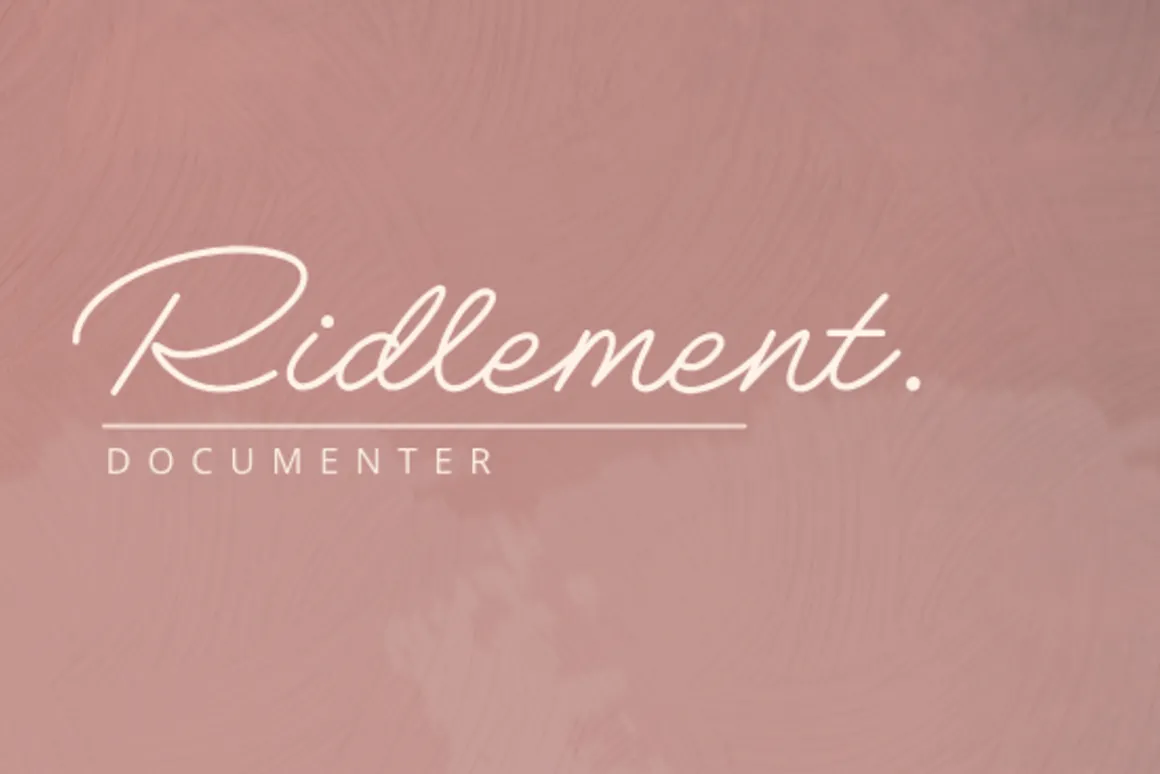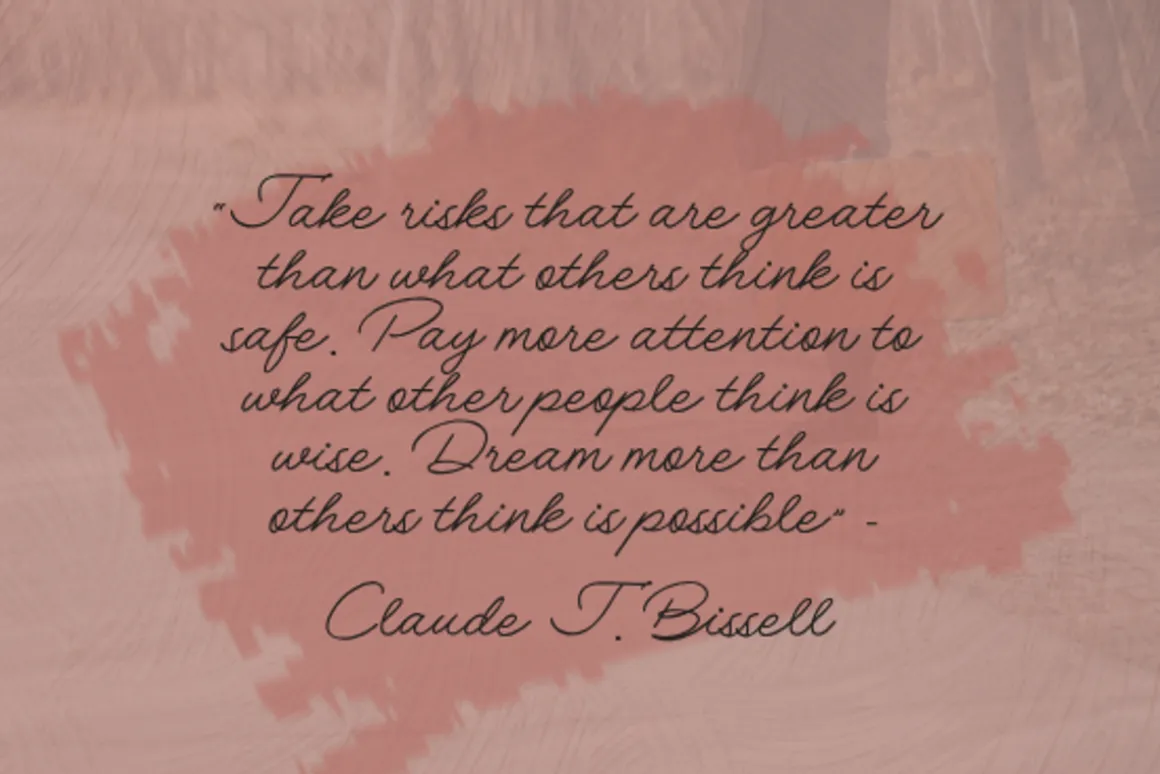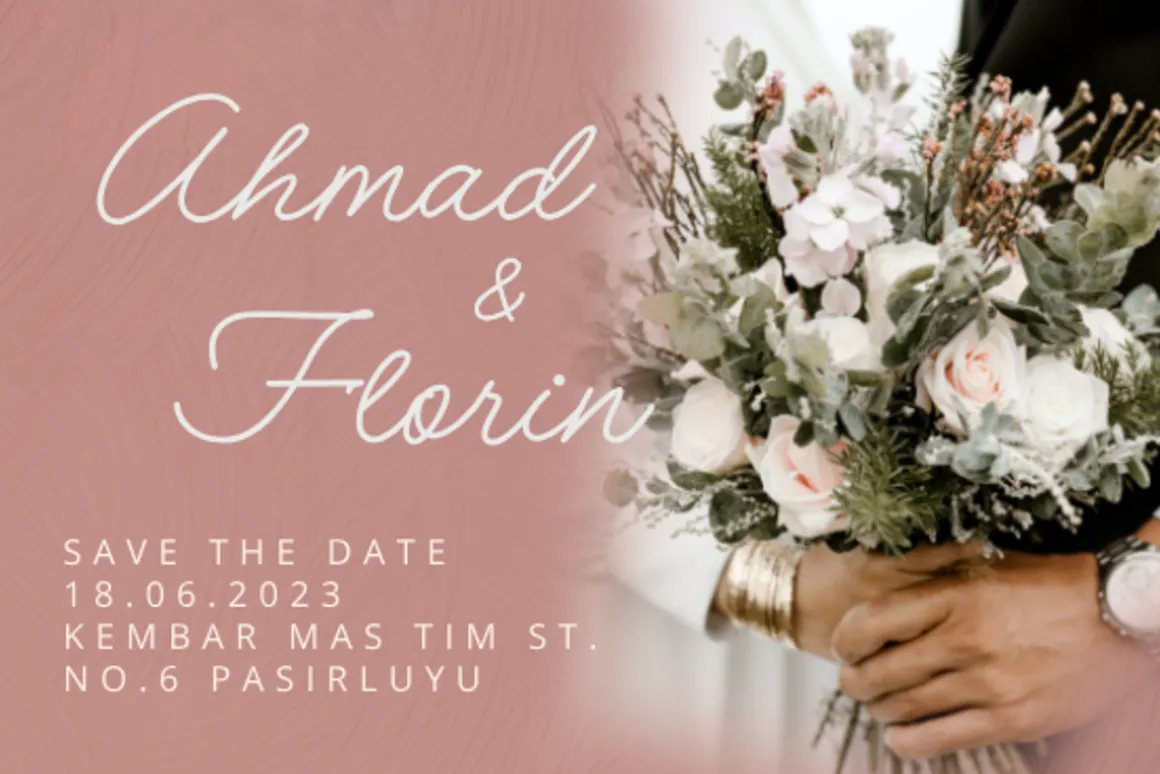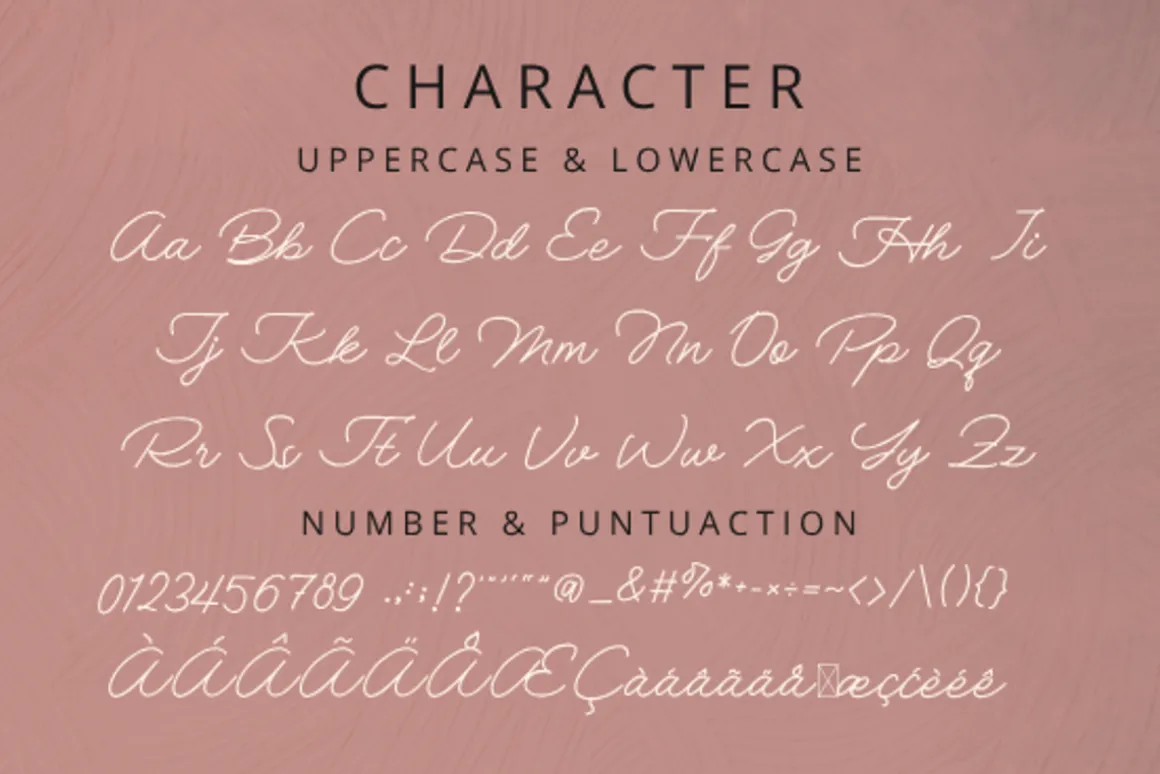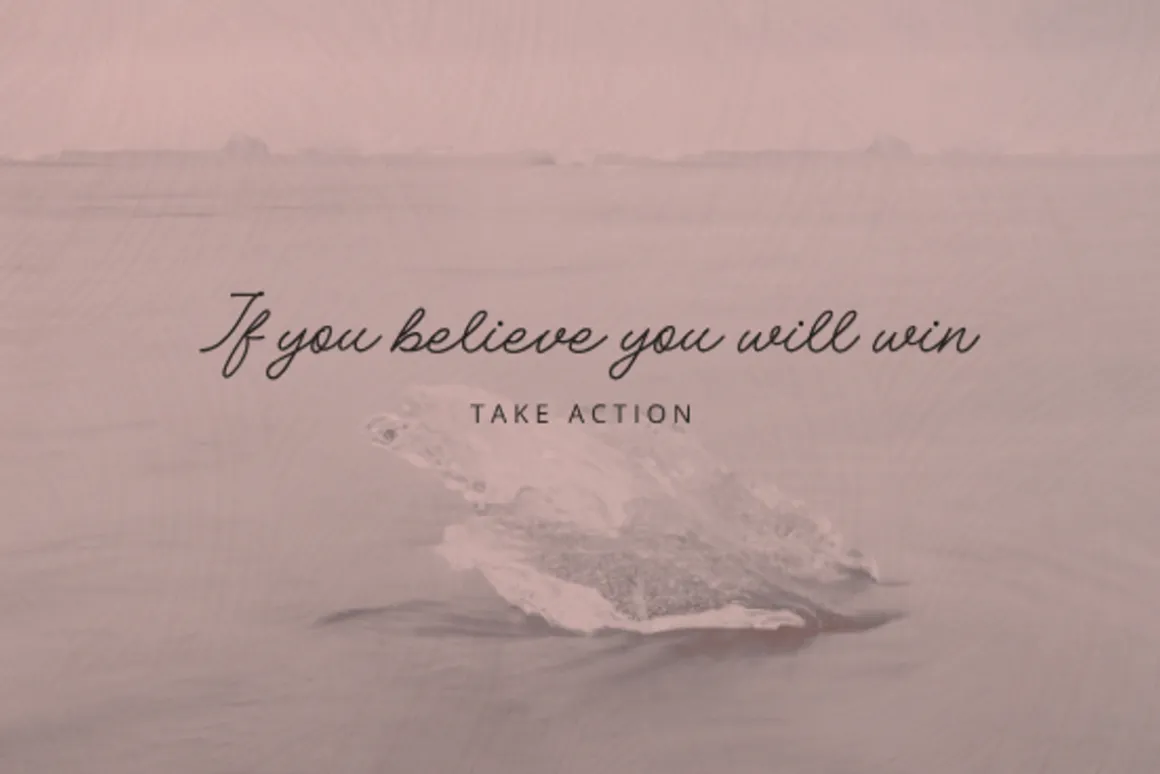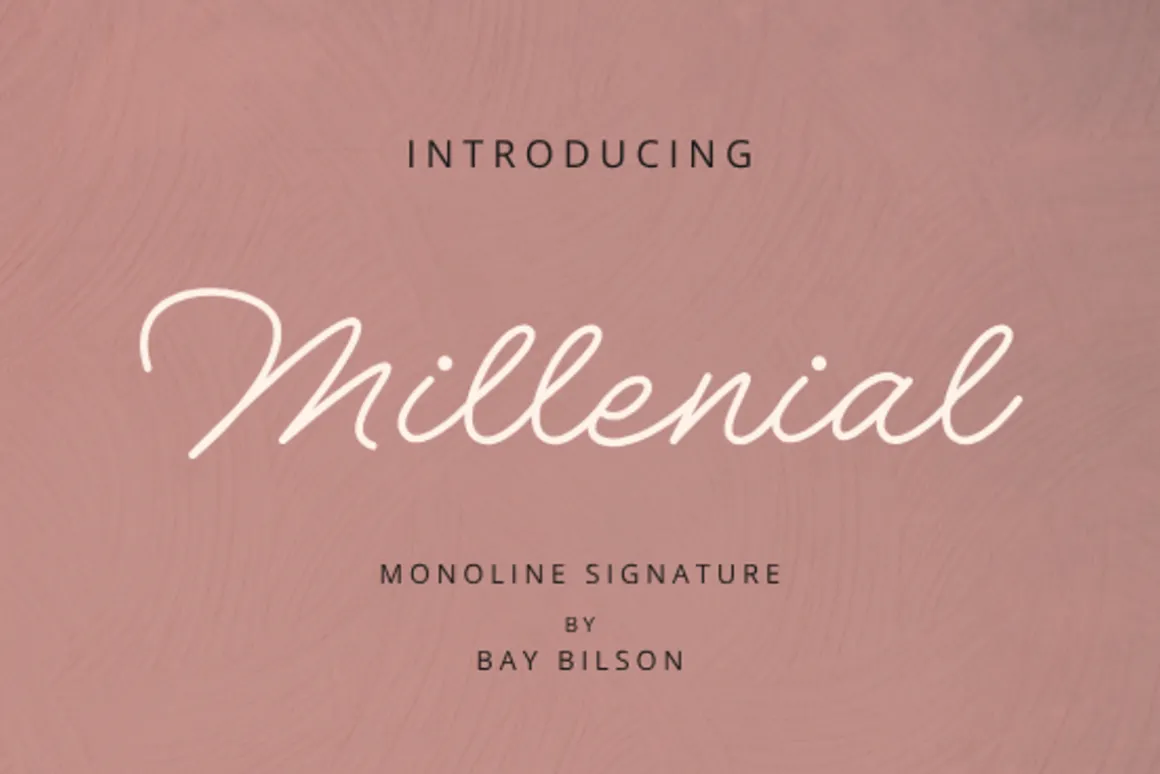
The Millennialfont is a visual representation of the spirit of today’s generation. Created with a modern and stylish design, this font exudes contemporary attractiveness that follows the latest trends. With its unique and flexible character, Millennialis suitable for a variety of design needs, from social media to company branding. Each letter describes the intelligence, freedom, and spirit of innovation that are characteristic of the millennial generation. With its elegance and freshness of design, the Millennialfont will be an ideal choice to make your messages more interesting and up-to-date.